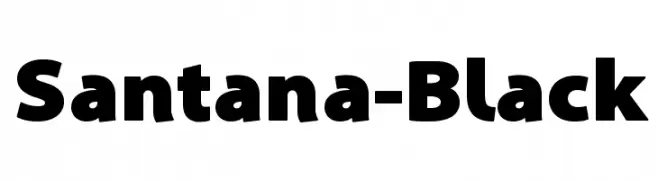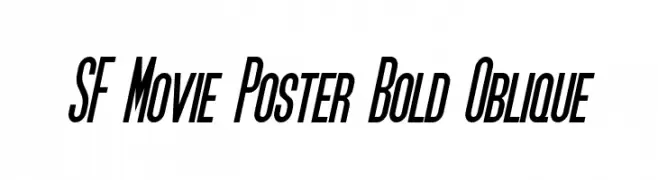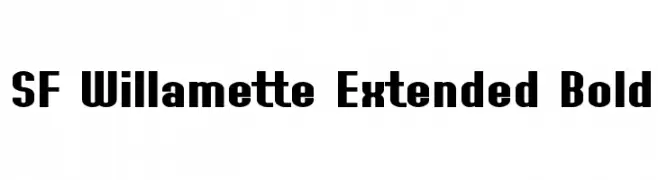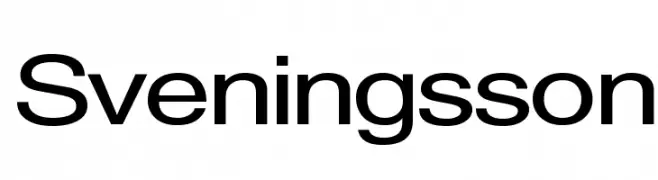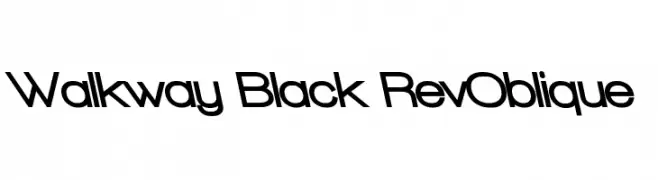
A bold, modern sans-serif font with clean lines and excellent readability.
A modern, geometric sans-serif font with clean lines and balanced proportions.
A modern, light sans-serif font with smooth, rounded edges and low contrast.
A modern, clean sans-serif typeface with consistent stroke width and slightly condensed characters.
A bold, superwide font with a modern and uniform design.
A bold, modern sans-serif font with an oblique style and consistent thickness.
A bold, rounded font with a modern and impactful style.
A bold, oblique font with a dynamic and modern style.
A bold, extended font with a strong, modern presence.